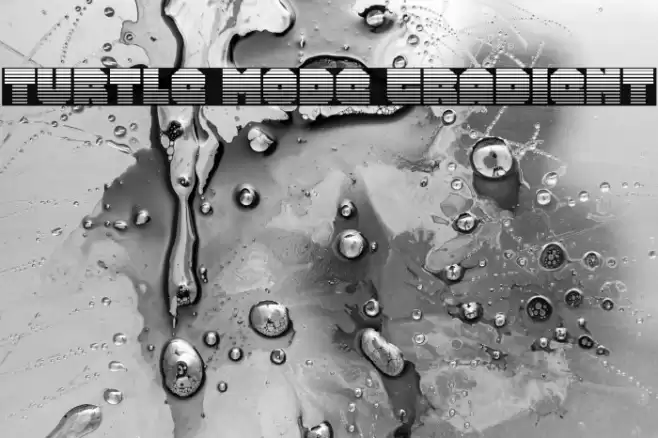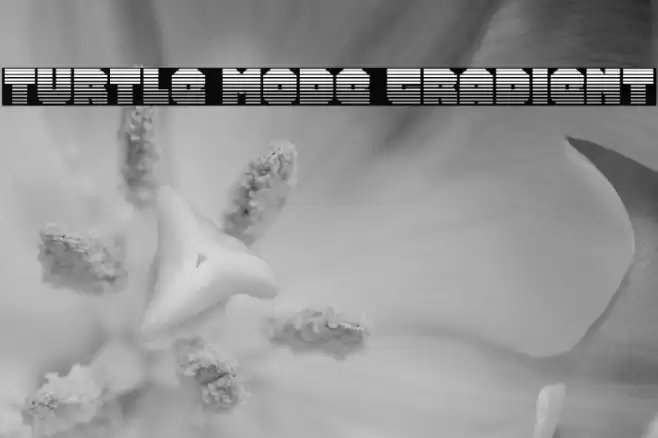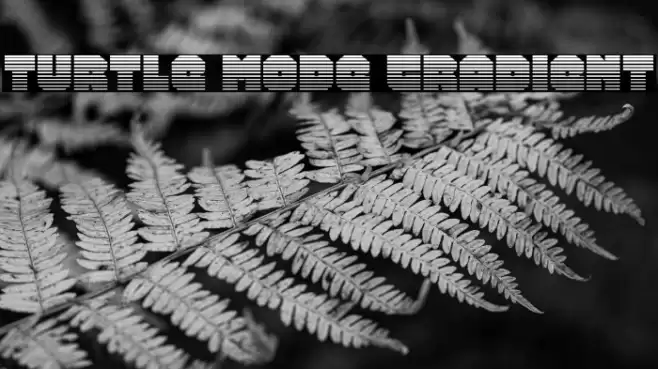
Turtle Mode Gradient Font
Turtle Mode Gradient Description
This font features a unique, modern design characterized by horizontal lines that create a gradient effect across each character. The letters are bold and wide, giving a strong visual impact. The geometric structure is consistent throughout, with each character maintaining a uniform width and height. The use of parallel lines adds a sense of movement and dynamism, making it stand out in any design. The font includes both uppercase and lowercase letters, numbers, and a selection of special characters, all maintaining the same stylistic approach. The overall appearance is futuristic and eye-catching, suitable for projects that require a bold statement.
A modern, bold font with a gradient effect created by horizontal lines from Uncategorized fonts.
- Proposed Projects: Ideal for futuristic designs, tech branding, posters, and digital media that require a bold and dynamic look.
- Width: Expanded